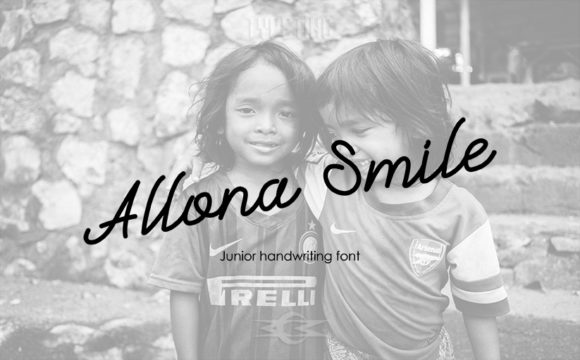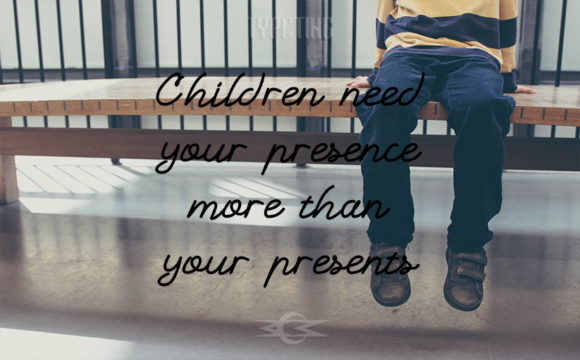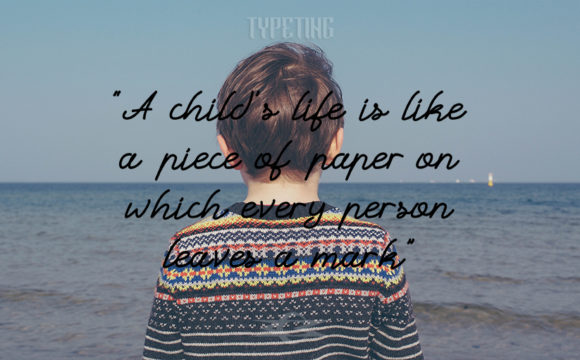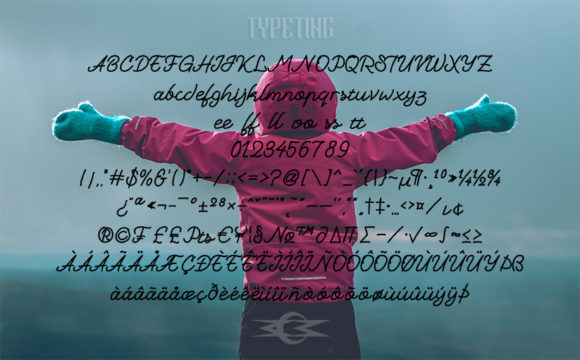
Allona Smile Font
Allona Smile Font Poster 1
About Allona Smile Font
The Allona Smile is an amazing handwritten font which was inspired by children’s writing. It has a natural writing style and a great readability.
It’s suitable for project designs for children and teenagers such as birthday cards, book covers, etc.